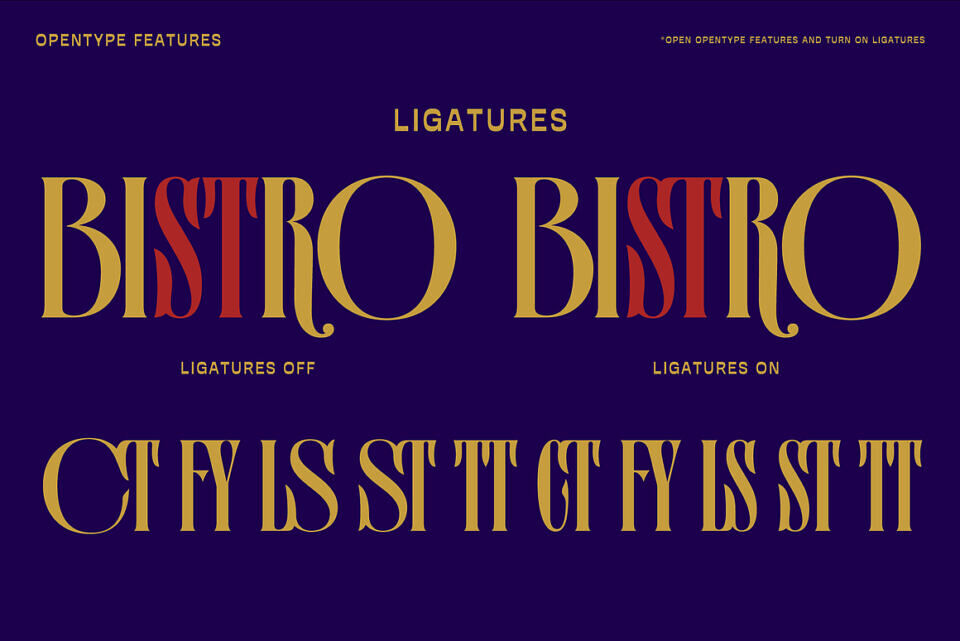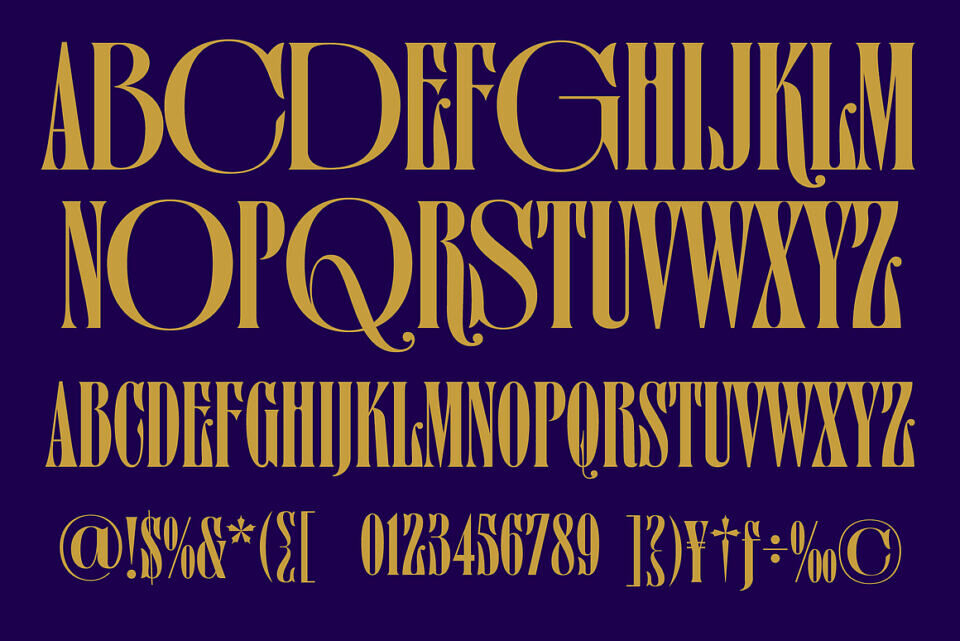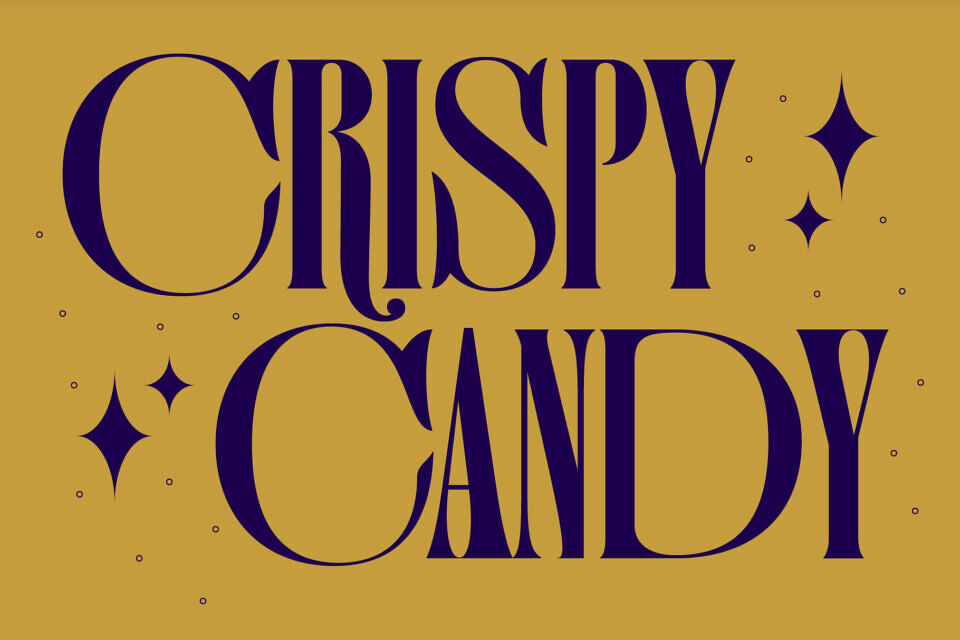
GW Garve Font
GW Garve is a high serif contrast display font with a condensed width, perfect for striking, elegant designs. Its bold, tall letterforms feature dramatic thick and thin strokes, exuding a luxurious and sophisticated vibe.
The font’s condensed structure makes it ideal for headlines, posters, and branding, while its ornate serifs add a touch of vintage charm. With a complete set of uppercase and lowercase letters, numbers, and punctuation, GW Garve enhances any project with a refined, high-end aesthetic. Use it for logos, invitations, or packaging to create a lasting, elegant impression.